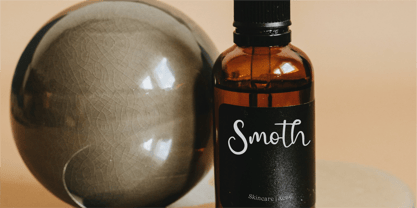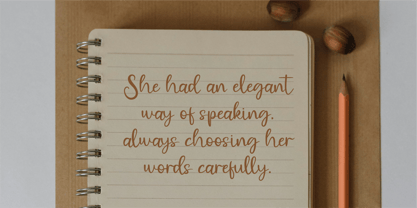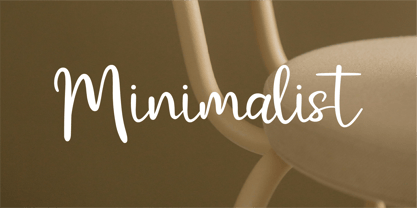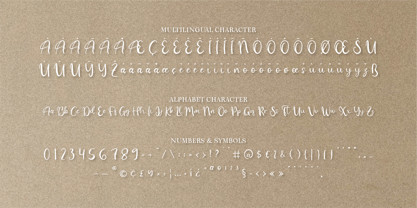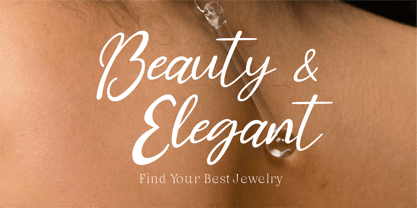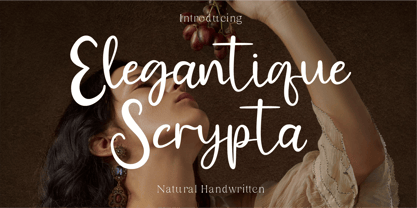
CF Elegantique Scrypta
The CF Elegantique Scrypta Font Family was designed by Gilang Mei Nugraha, Frederik Aristaputra and published by Indotype. CF Elegantique Scrypta contains 2 styles and family package options. More about this family
Elegantique Scrypta – A Timeless & Natural Handwritten Script
Step into the world of elegance with Elegantique Scrypta, a refined handwritten script that blends grace, sophistication, and natural beauty. With its fluid strokes, delicate curves, and organic flow, this font captures the charm of traditional calligraphy while remaining effortlessly modern.
Designed for those who appreciate luxury and artistry, Elegantique Scrypta is the perfect choice for wedding invitations, branding, editorial design, fashion labels, and upscale packaging. The well-balanced letterforms and stylish flourishes create a sense of exclusivity, making every word feel personal and exquisite.
Why Choose Elegantique Scrypta?
✔ Elegance in Every Stroke: Inspired by classic calligraphy with a modern touch.
✔ Naturally Handwritten: Organic and authentic, as if written by hand with care.
✔ Versatile & Stylish: Perfect for luxury branding, invitations, logos, and social media.
✔ Refined & Readable: Designed for beauty and legibility in every application.